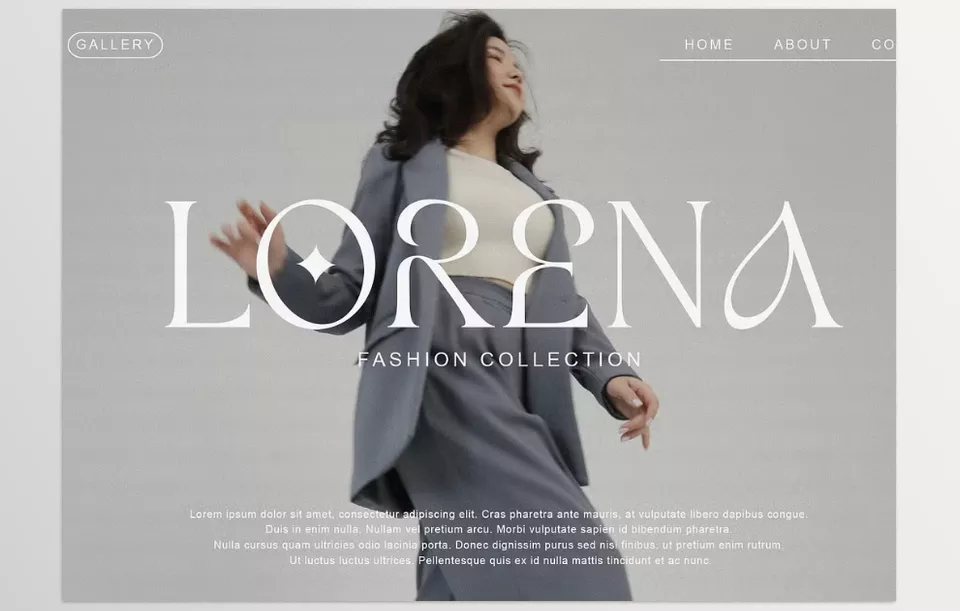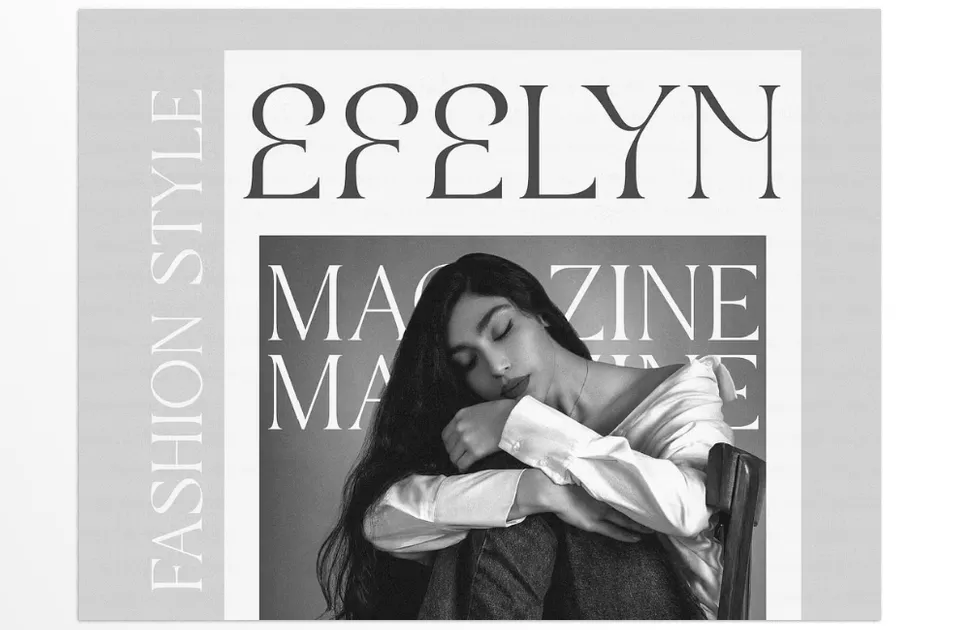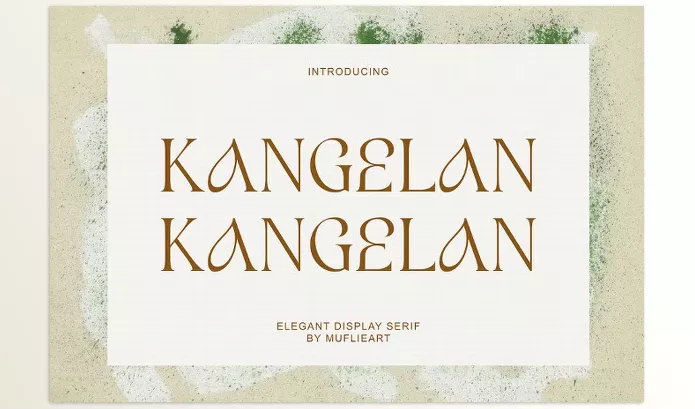
Creative Market – Kangelan by Muflieart is an elegant serif font crafted to elevate your designs with a modernistic and minimalistic feel. It is elegant because of its unique uppercase letters, alternates, and ligatures. Kangelan can add a luxurious feel to logos, branding, or even websites.
Muflieart – Kangelan Features
• Modern and Sleek Design: This brings out a sense of elegance and luxury in any project because of its extremely minimalistic contemporary approach.
• Distinctive Capital Letters: This helps in easy identification as the letterforms uniquely appeal to them.
• Highly Versatile: Can be used across various mediums like websites, logos, wedding invitations, and magazine layouts.
• Sophisticated Ligatures: Stylish letter combinations that serve a seamless look.
Kangelan Overview
Image 1: It brings a luxurious, classy, and clean style to your projects.
Creative Market - Kangelan - It brings a luxurious, classy, and clean style to your projects.
Image 2: It is equipped with unique letter alternatives and ligatures.
Creative Market - Kangelan - It is equipped with unique letter alternatives and ligatures.